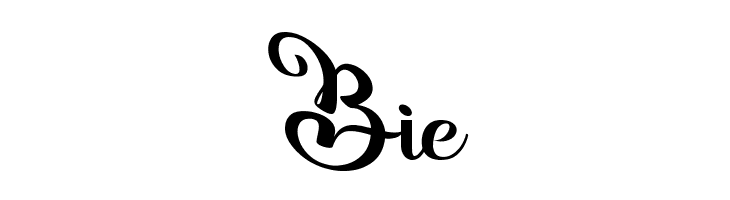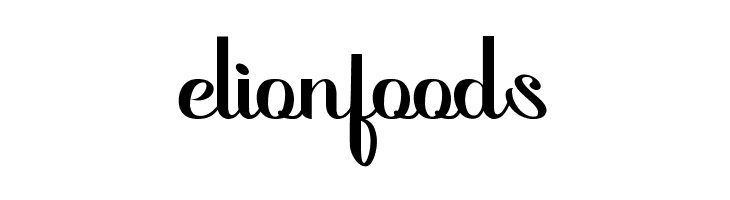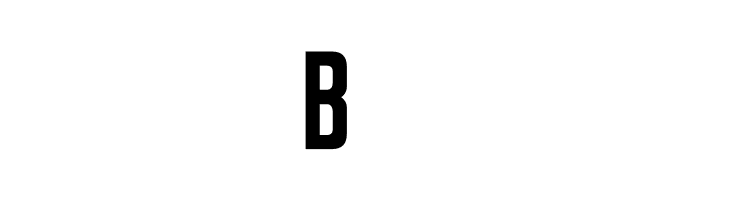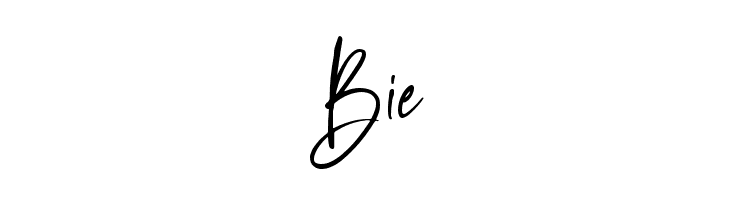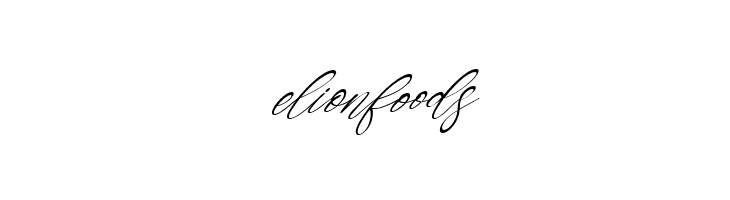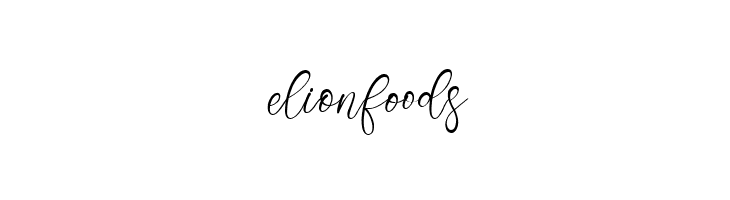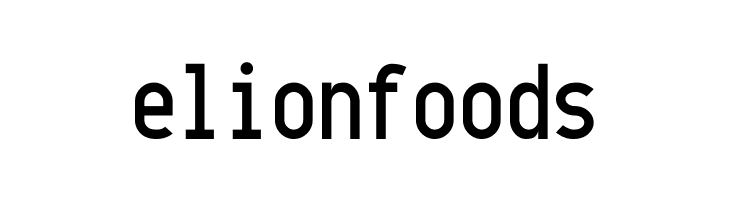
A lively, expressive handwritten font with fluid, dynamic strokes.
A bold, geometric font with strong lines and high contrast, perfect for impactful headlines.
An elegant and decorative script font with intricate uppercase and smooth lowercase letters.
A graceful script font with flowing, interconnected letters and elegant flourishes.
An elegant, italic script font with flowing, cursive characters.
A modern, clean sans-serif font with a slightly condensed structure.
A modern, geometric sans-serif font with uniform strokes and excellent readability.
A whimsical and decorative font with playful curls and loops.